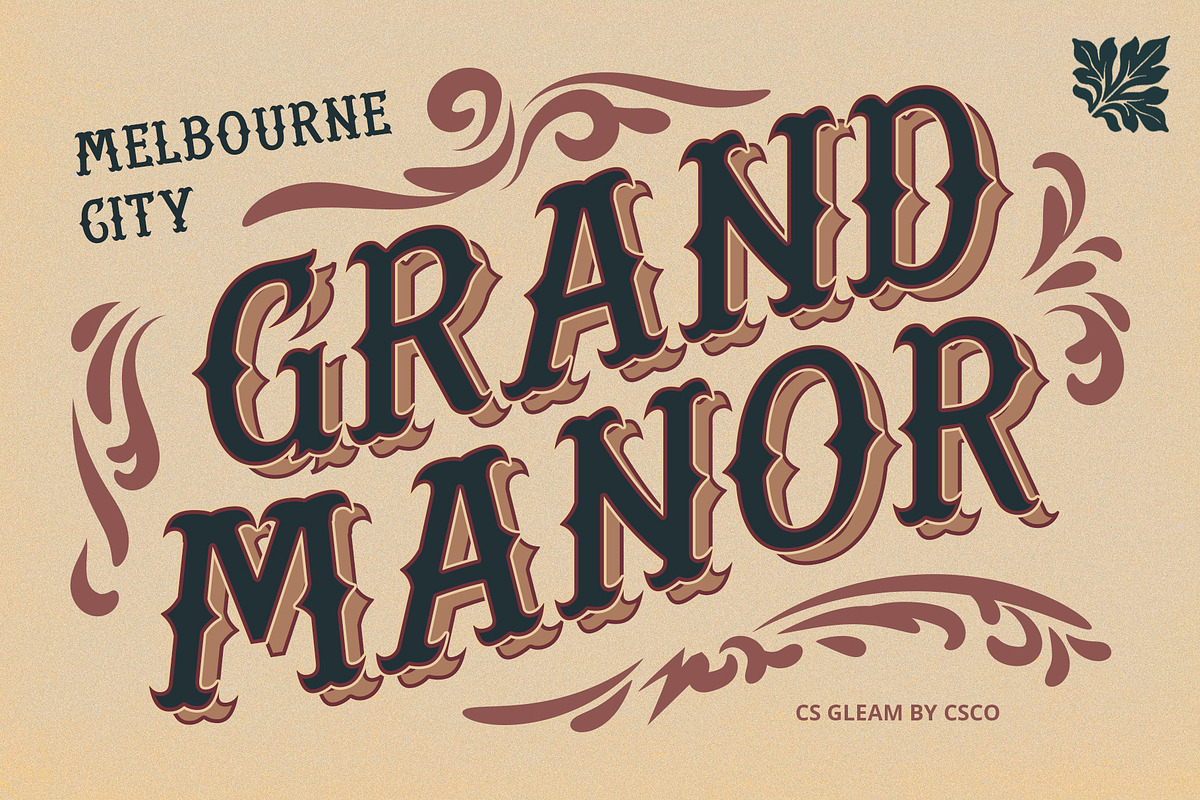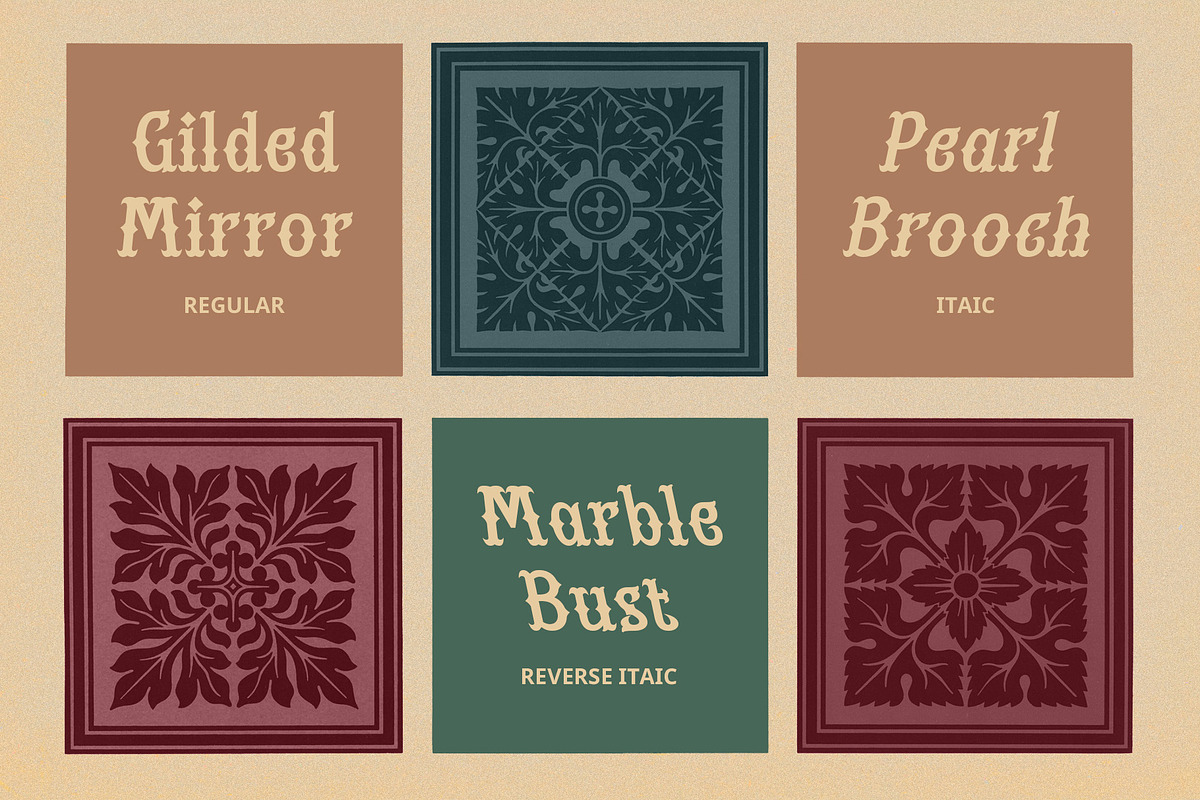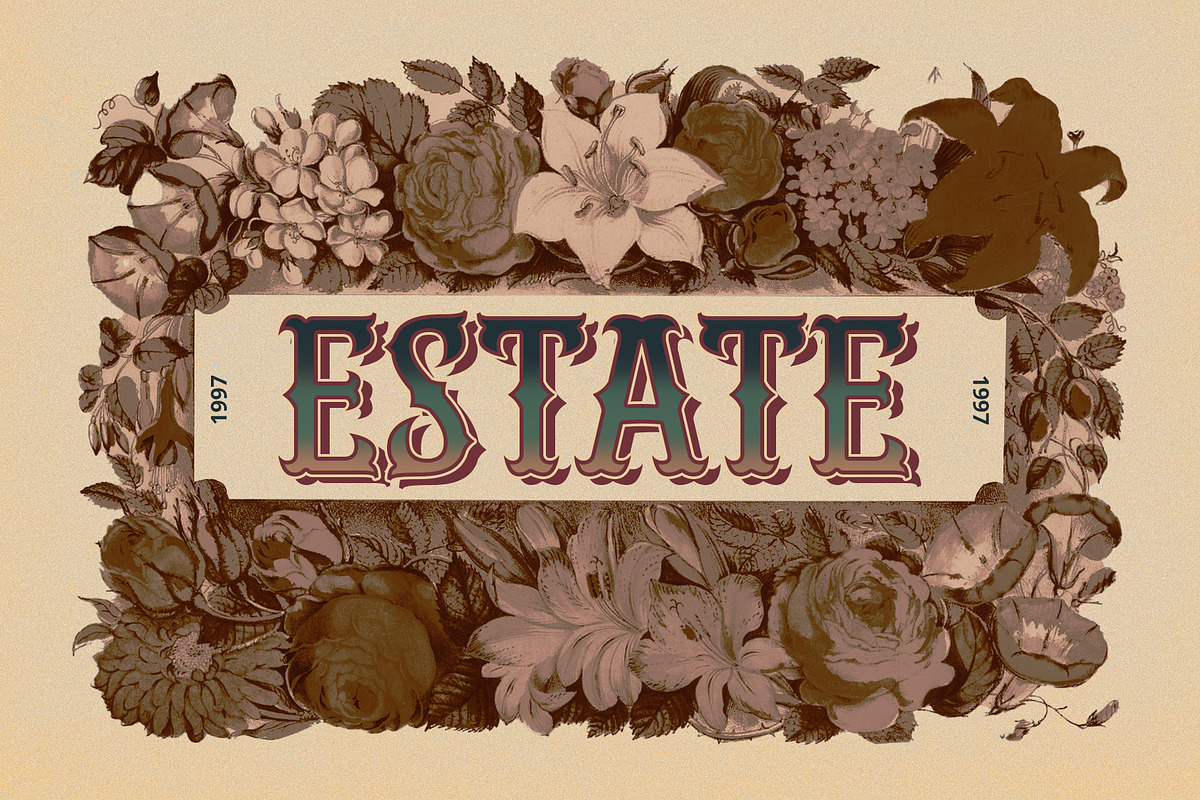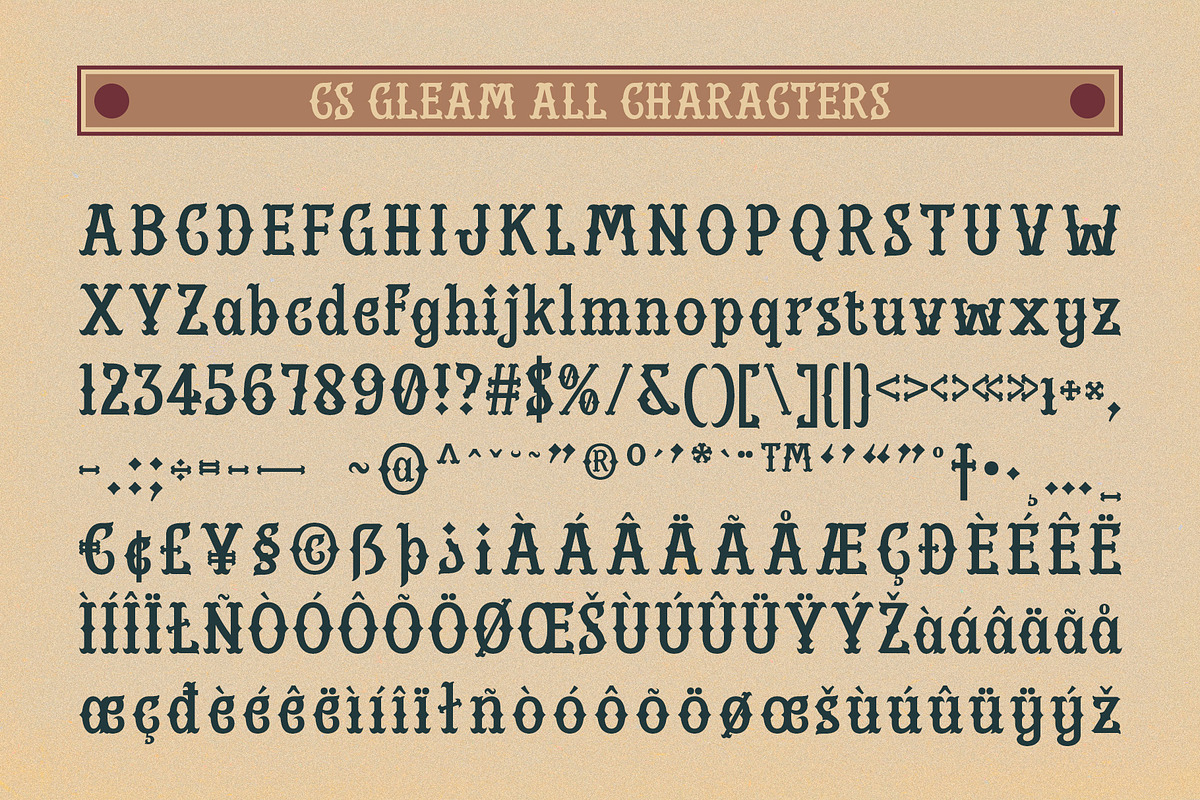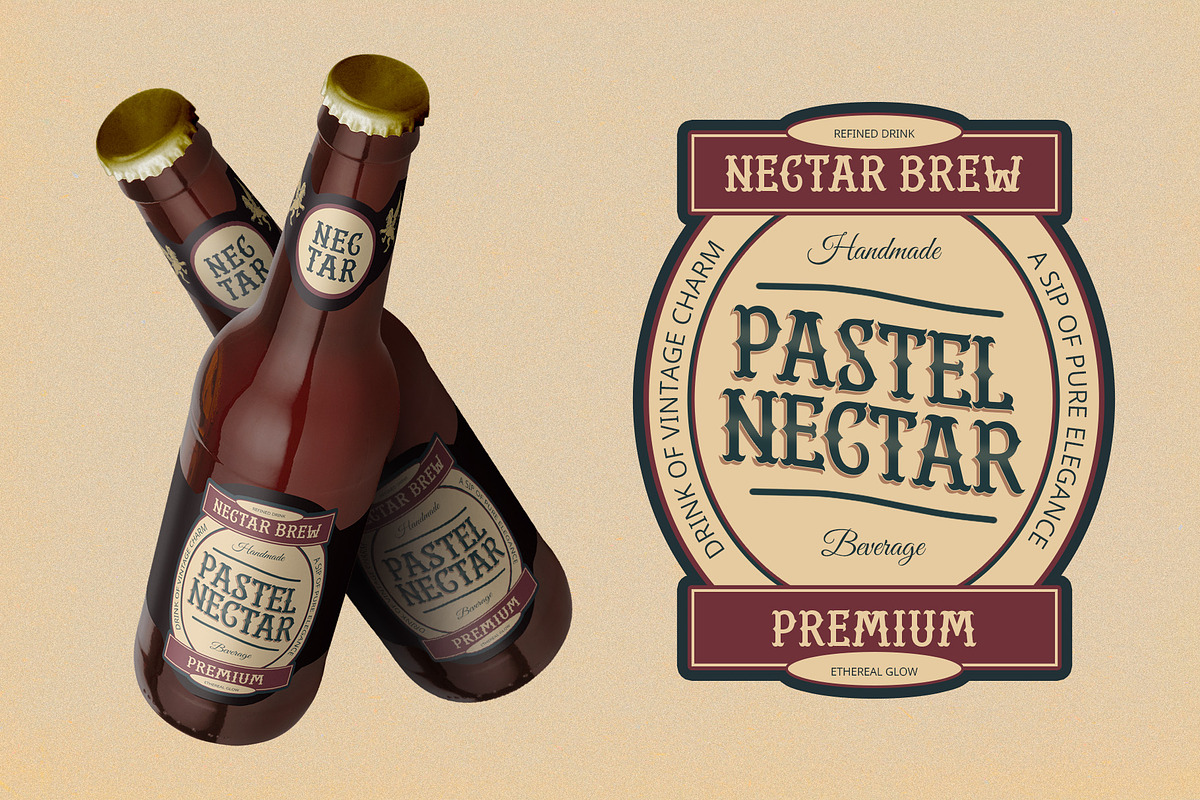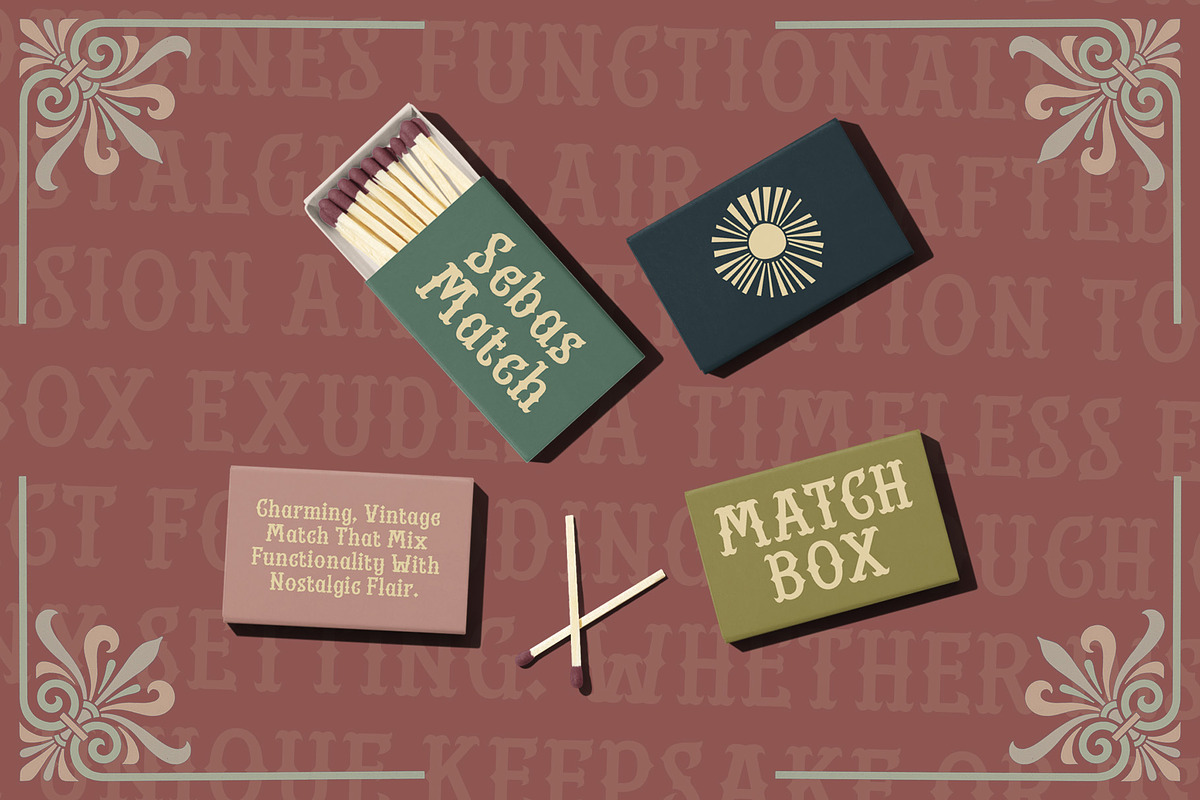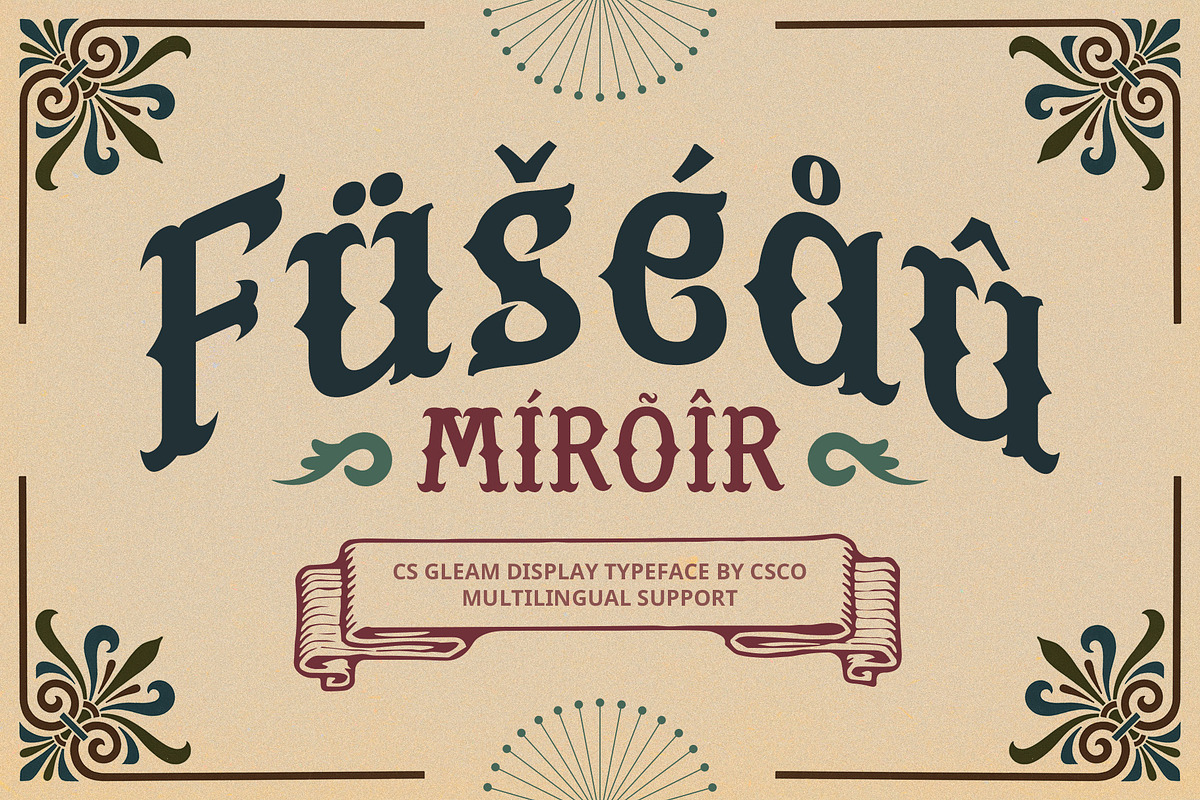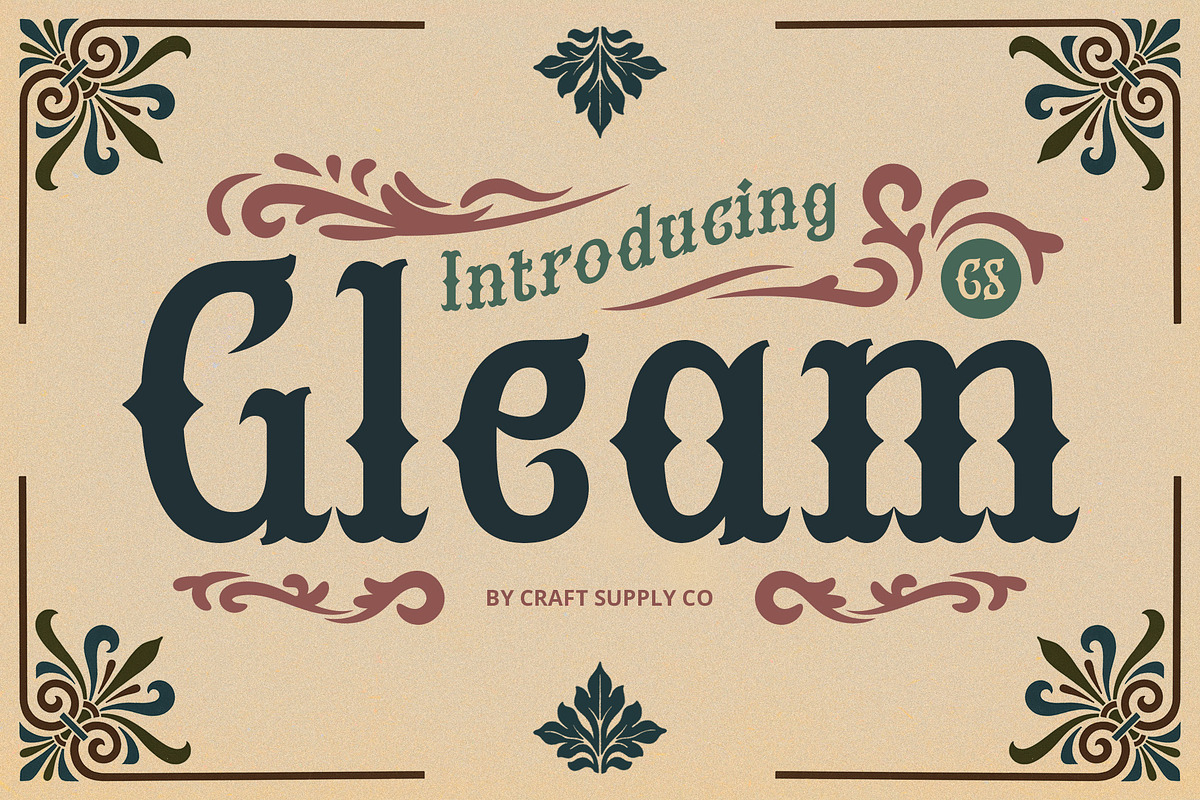
CS Gleam – Tuscan Font
CS Gleam – Tuscan Font: A Bold Vintage Typeface with Classic Elegance
Distinctive Tuscan Style CS Gleam is a striking Tuscan display font, characterized by its split terminals, decorative curves, and bold contrast. Inspired by 19th-century typography, this font embodies the charm of old-world craftsmanship, reminiscent of vintage posters, historical signage, and classic letterpress styles. Its intricate details and strong presence make it a perfect choice for designs that demand a bold and artistic touch.
Vintage Western & Ornamental Appeal The unique letterforms of CS Gleam capture the iconic aesthetics of the Wild West era, with influences from circus posters and Victorian-era type design. Its decorative yet structured form adds an antique, theatrical quality, making it ideal for projects seeking a nostalgic, timeless look. Whether used in branding, editorial design, or product packaging, this font creates a distinctive and memorable impression.
Perfect for Classic & Themed Designs With its vintage elegance and artistic detailing, CS Gleam is ideal for branding, themed events, logo designs, and signage that aim to showcase sophistication with a historical edge. Whether crafting a bold whiskey label, a Western-inspired poster, or a refined heritage brand identity, this Tuscan font enhances any design with its strong classic appeal and timeless beauty.
- CS Gleam Regular
- CS Gleam Italic
- CS Gleam Reverse Italic